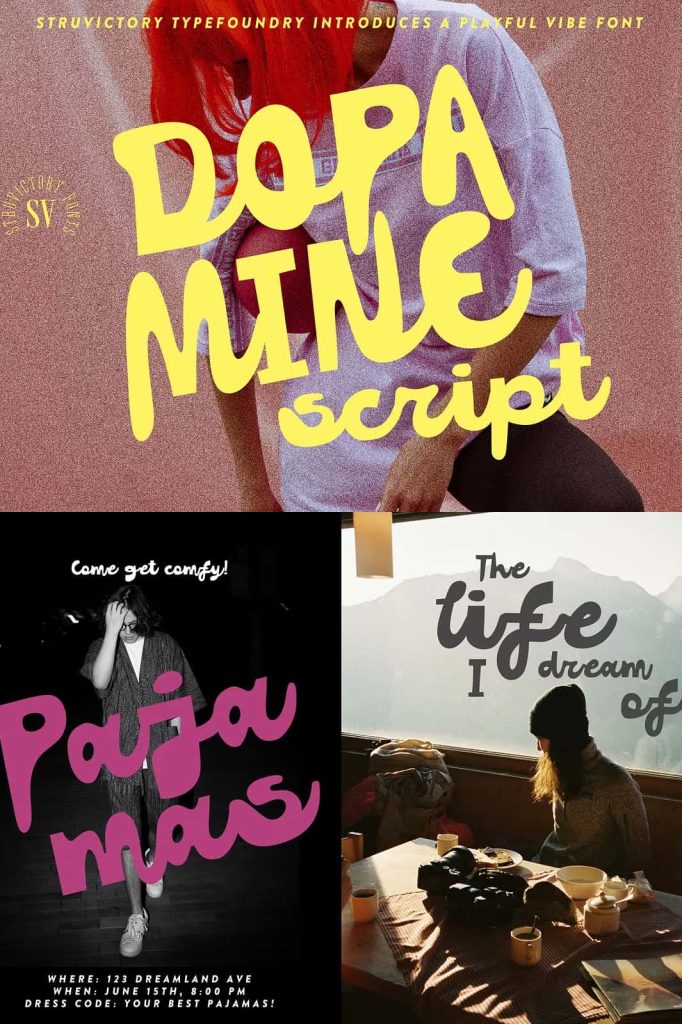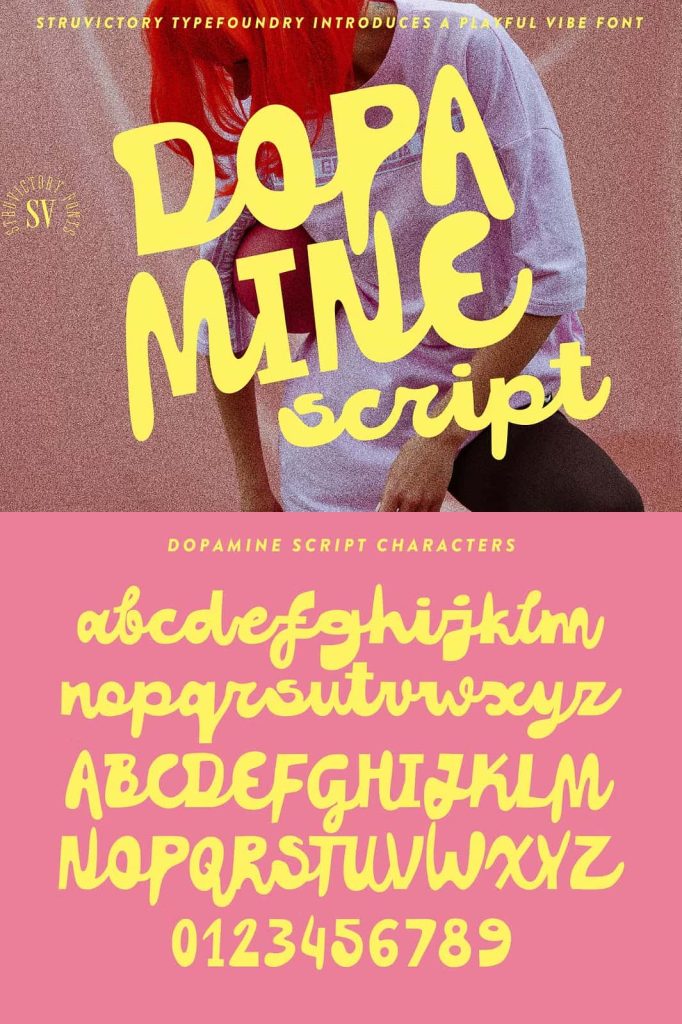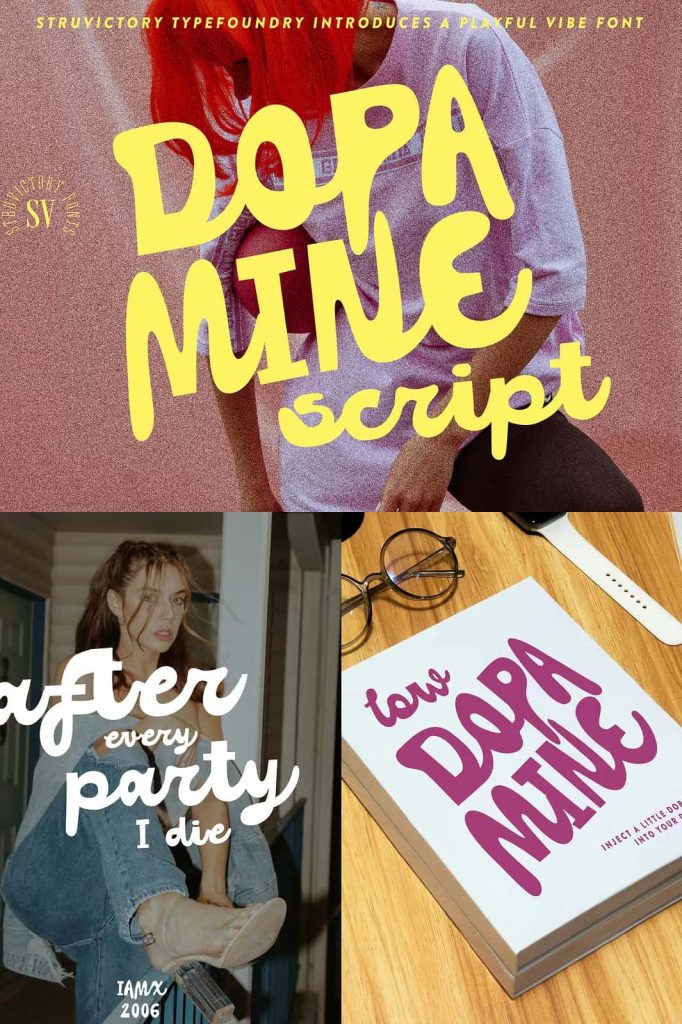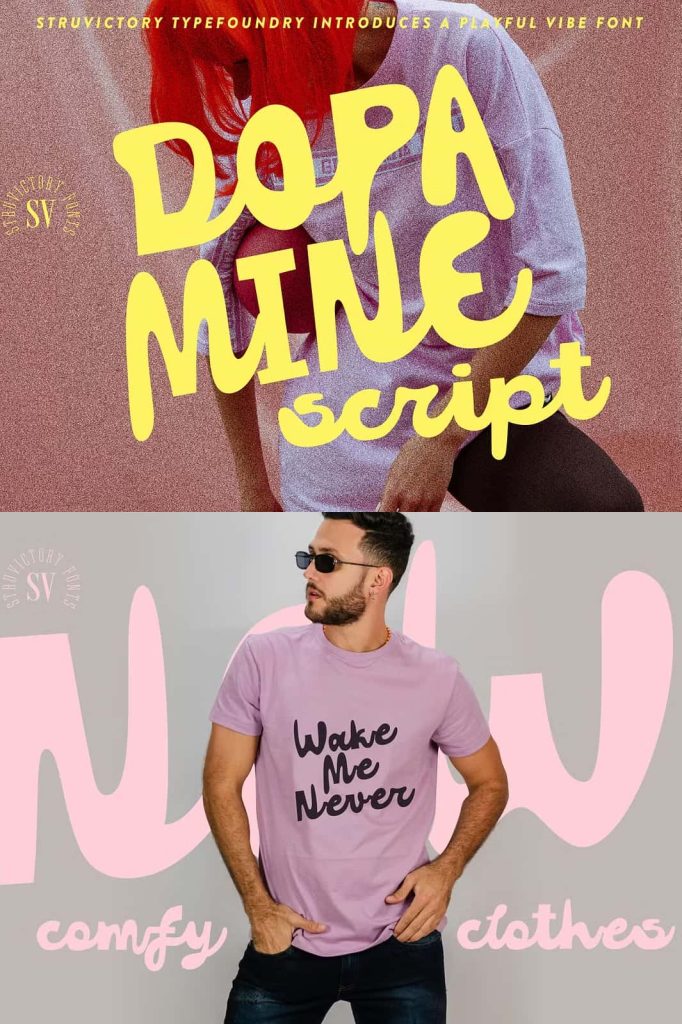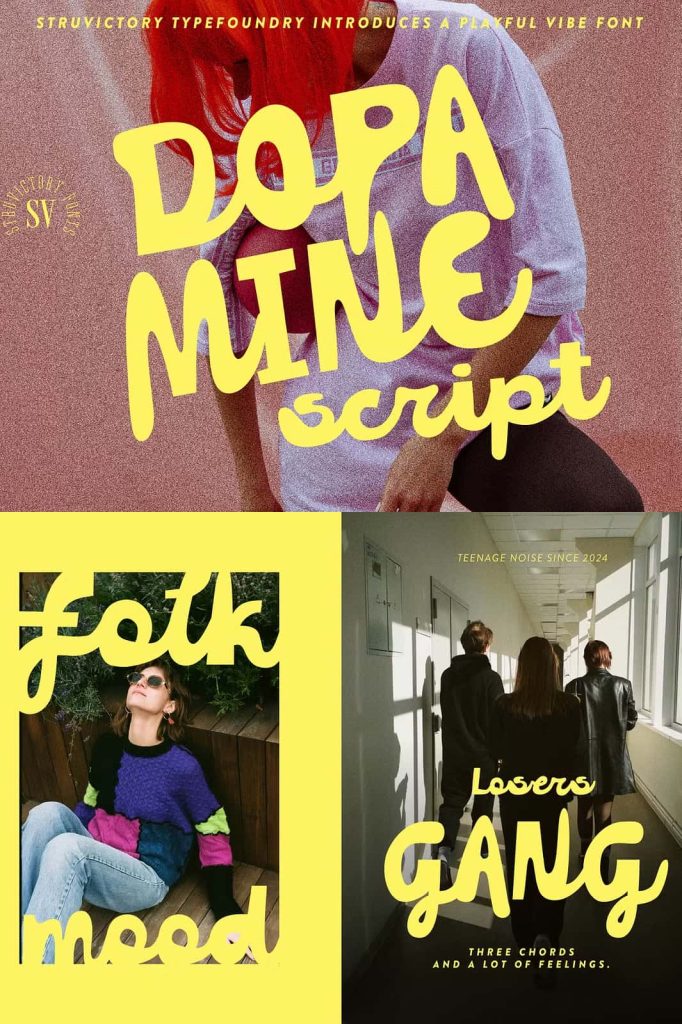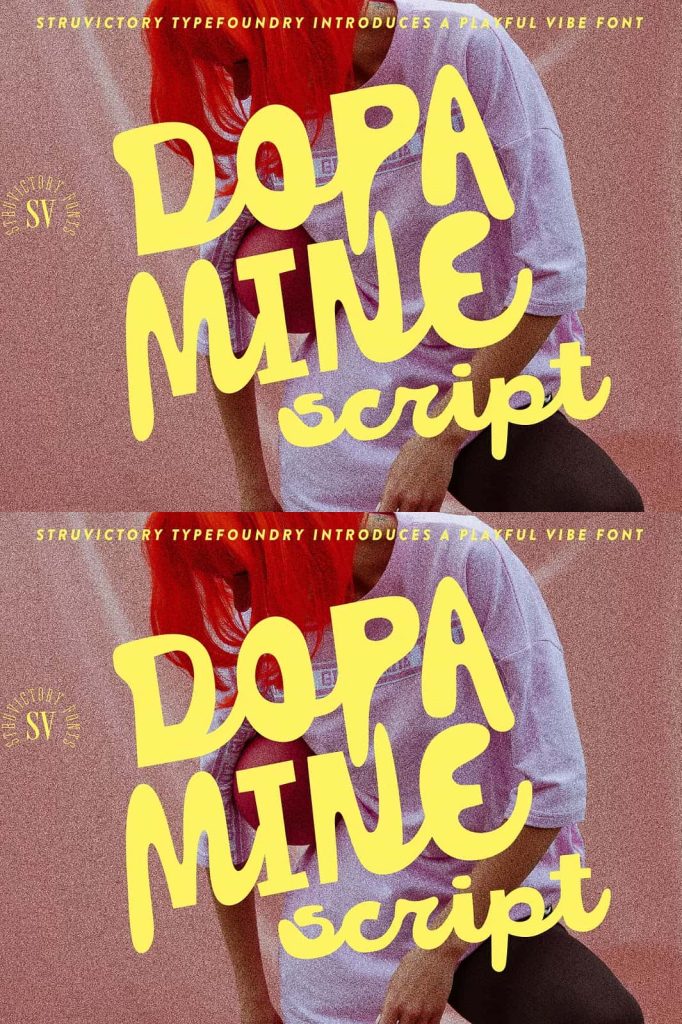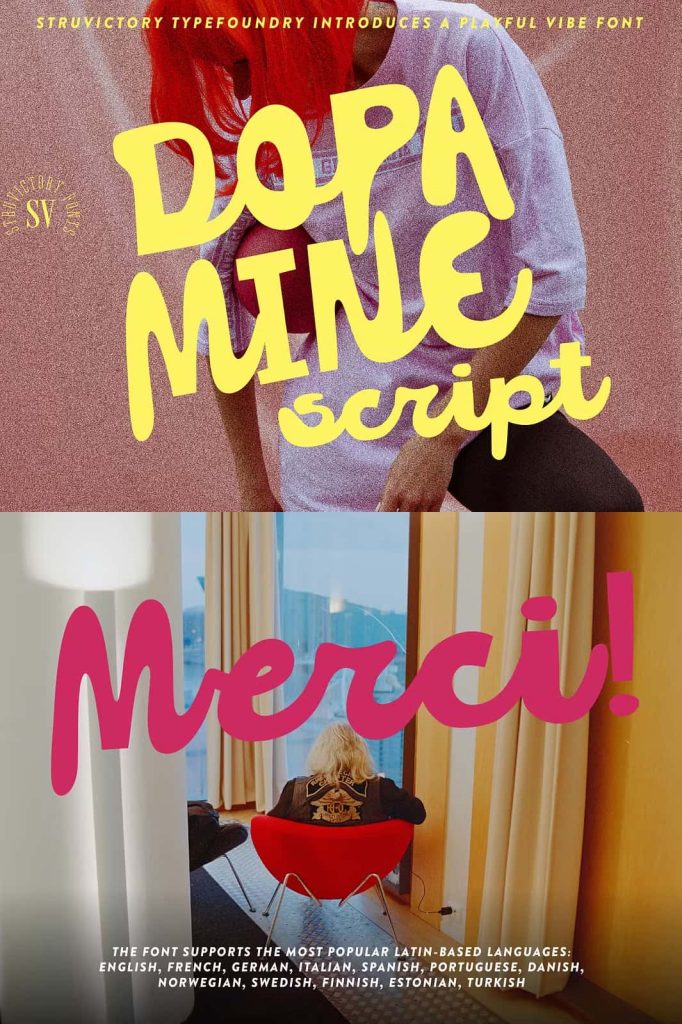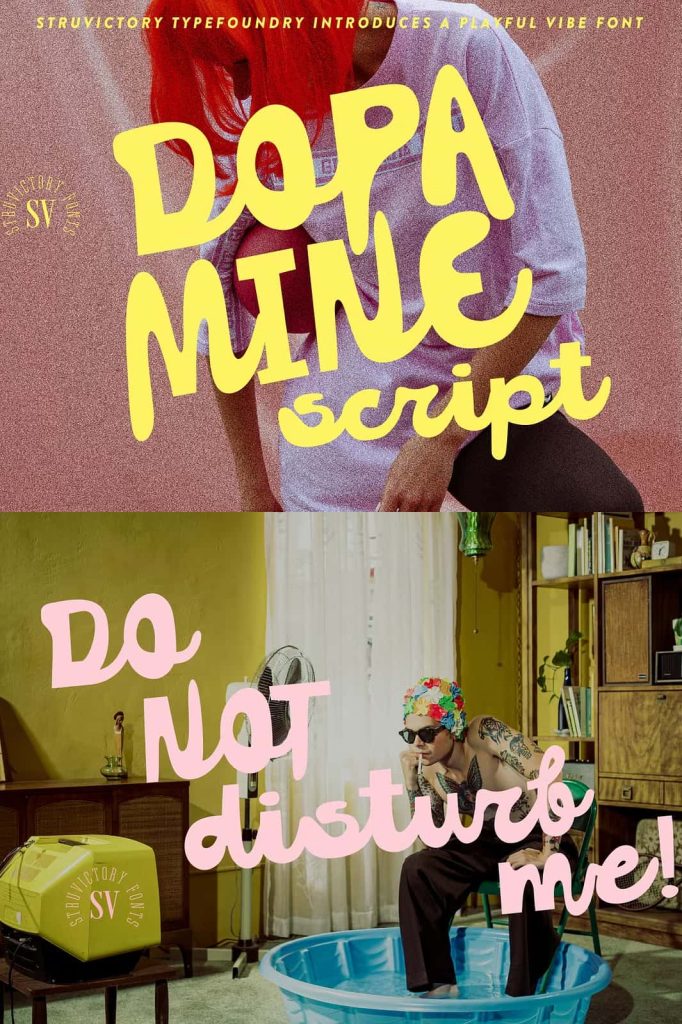
Dopamine Script Handwritten Typeface: Natural Rhythm with Confident Expression
Dopamine Script is a relaxed yet confident handwritten typeface that brings energy, authenticity, and creative freedom into modern design. Built with loose strokes and organic flow, this font captures the essence of natural handwriting while maintaining a clear and purposeful structure. Designers can use Dopamine Script to create work that feels expressive without losing readability or visual balance.
Relaxed Style with Strong Personality
Dopamine Script stands out because it embraces a casual aesthetic while still projecting confidence. Its letterforms flow effortlessly, creating a rhythm that feels natural and engaging. Instead of rigid alignment, the font uses subtle variations in stroke and spacing to mimic real handwriting, giving each composition a lively and human touch.
This relaxed structure allows designers to move beyond strict typographic rules and explore more expressive layouts. At the same time, the font maintains enough consistency to ensure that your message remains clear and effective.
Organic Imperfections That Enhance Design
The beauty of Dopamine Script lies in its imperfections. Each character carries small irregularities that add depth and personality, making your designs feel more authentic. These details prevent the typography from appearing mechanical, helping your work stand out in a crowded visual landscape.
Designers can use these organic qualities to create compositions that feel spontaneous and genuine. Whether you are working on branding or editorial projects, Dopamine Script adds a layer of realism that enhances the overall design.
Balanced Between Spontaneity and Clarity
Dopamine Script achieves a careful balance between creative freedom and readability. While the strokes appear loose and dynamic, the overall structure remains controlled and legible. This balance ensures that your designs communicate effectively while still expressing individuality.
- Create expressive headlines without sacrificing clarity
- Maintain readability in both print and digital formats
- Add personality while preserving a professional appearance
- Build compositions that feel both natural and intentional
This combination makes Dopamine Script a reliable choice for designers who want to experiment without compromising usability.
Versatile for Modern Design Applications
Dopamine Script adapts seamlessly to a wide range of creative projects. Its flexible style allows it to perform well across different industries and design needs. Designers can incorporate it into both bold and subtle compositions, depending on the desired outcome.
This typeface works particularly well in:
- Branding projects that require a personal and approachable tone
- Apparel design where expressive typography enhances visual appeal
- Packaging that benefits from a handcrafted and authentic look
- Editorial layouts that combine creativity with readability
- Social media graphics that demand originality and engagement
Its adaptability ensures that it remains effective across various platforms and formats.
Designed for Creative Freedom
Dopamine Script encourages designers to explore new ideas and push creative boundaries. Its fluid structure makes it easy to experiment with different layouts, compositions, and typographic treatments. You can combine it with other fonts or use it as a standalone element to create strong visual impact.
This flexibility allows you to tailor your designs to specific projects while maintaining a cohesive and expressive style. Dopamine Script becomes more than just a font—it becomes a creative tool that supports your design process.
Enhance Your Visual Identity
Dopamine Script helps you build a distinctive visual identity by adding character and emotion to your typography. Its handwritten style conveys authenticity, making it ideal for brands and projects that want to connect with audiences on a personal level.
The natural rhythm of the letterforms creates a sense of movement, guiding the viewer’s eye through your design. This dynamic quality enhances engagement and makes your work more memorable.
Elevate Your Designs with Dopamine Script
Dopamine Script transforms ordinary text into a vibrant and expressive design element. Its combination of relaxed strokes, organic imperfections, and balanced structure allows you to create typography that feels both creative and functional. By incorporating this typeface into your projects, you can achieve a unique and engaging visual style.
Choose Dopamine Script handwritten typeface to bring rhythm, personality, and confidence into your designs. It provides the perfect balance between spontaneity and clarity, helping you create work that stands out while remaining accessible and effective.